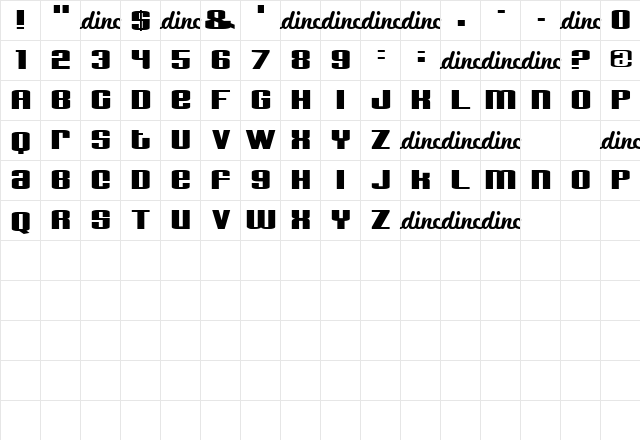
Drive Regular
Design Context for Drive Typeface
Drive is a composed and adaptable typeface that performs quietly and consistently across a wide range of design contexts.